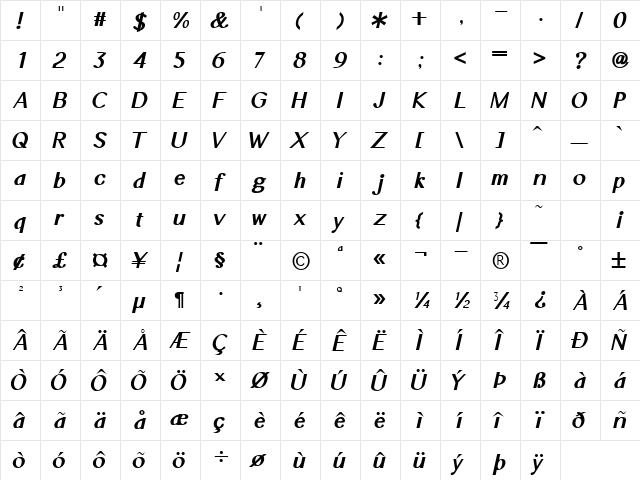
Ballymun RO BoldItalic
Design Context for Ballymun RO Typeface
Ballymun RO is a composed and adaptable typeface that performs quietly and consistently across a wide range of design contexts. The slanted form adds forward momentum and visual energy. Its bold stroke weight gives it real presence on the page.